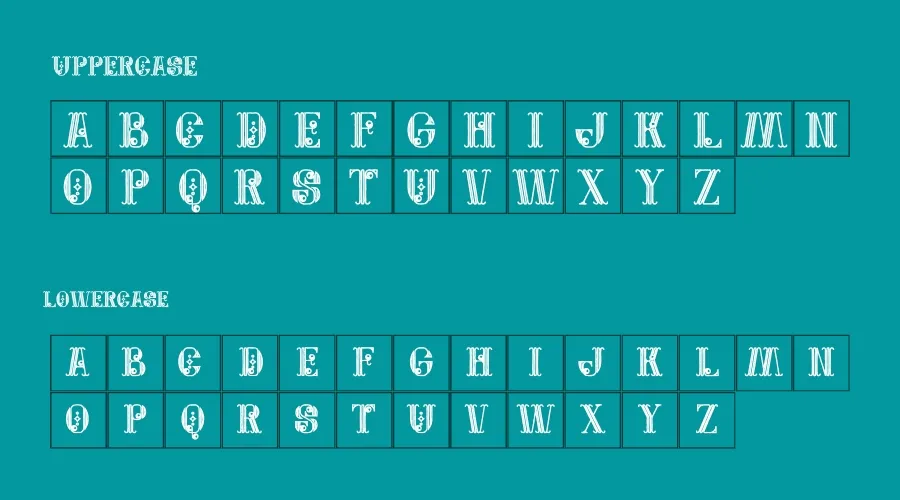
Jewel Font
About Jewel Font
Peter Olexa designed Jewel Font which is a fancy text style. Many people are downloading this free version for their projects because it is great for techno and square designs. Many fonts can be paired with this font, in this section, we will discuss the numerous uses of this font.
This astounding typeface can be used to create spectacular cards, logos, and invoices with a decorative touch. The tool is useful for creating magazine covers, banners, and social media posts.
It is also a great material for newspaper design, posters, and other related projects. This font is available in TTF format.
There is no doubt that this font has flexible characters that will give you flawless results. Many alternatives can be paired with this font there is no doubt that this font is very popular among designers.
And people who use it for their purposes due to its soft and unique look. In HTML and CSS, this font is specified as a design element.